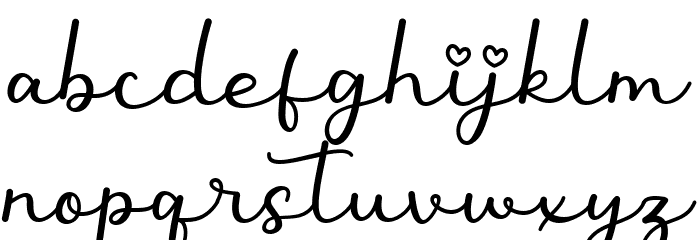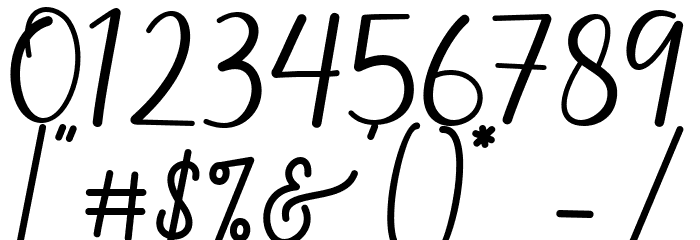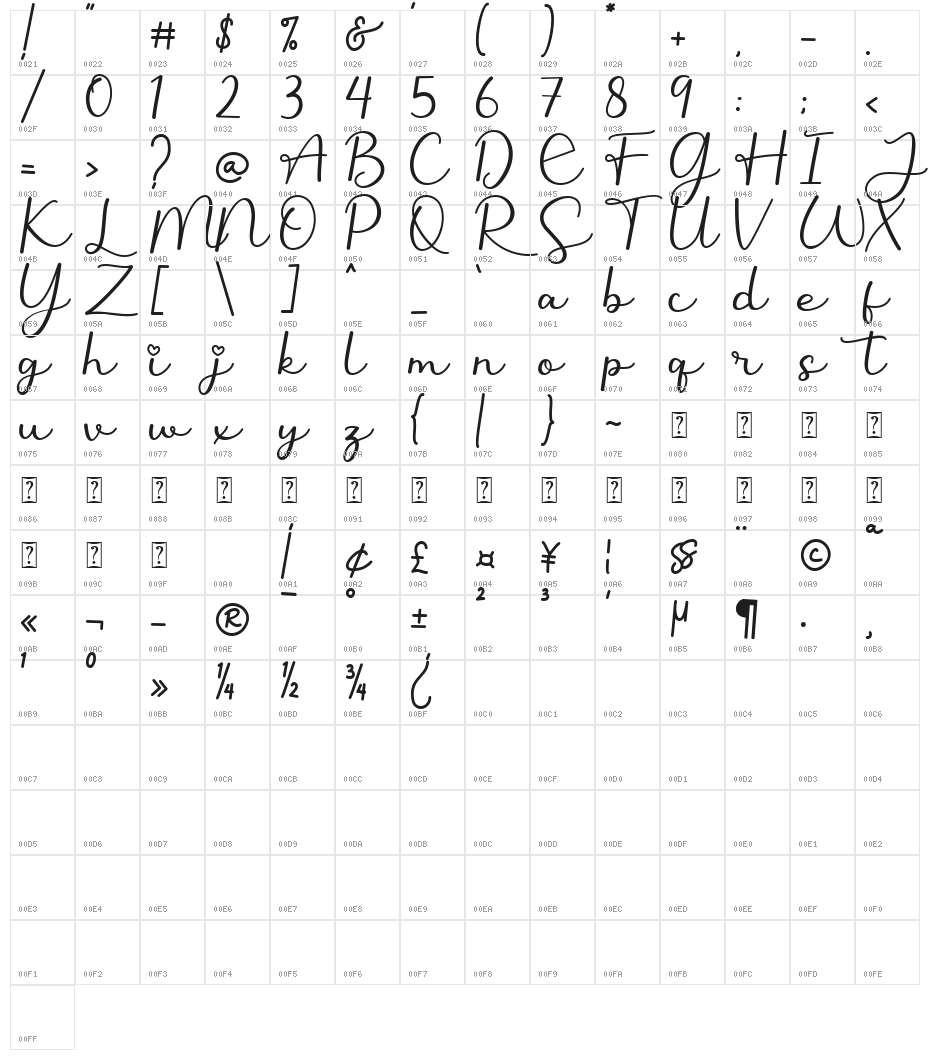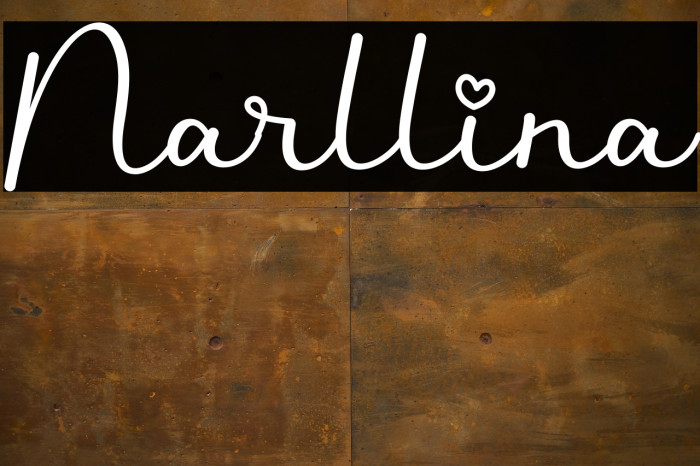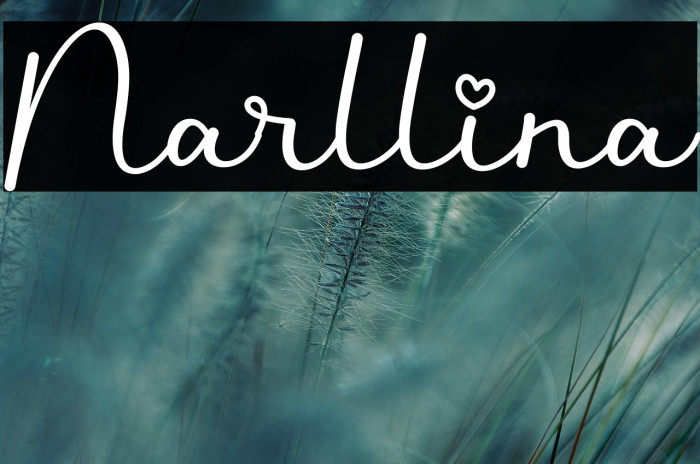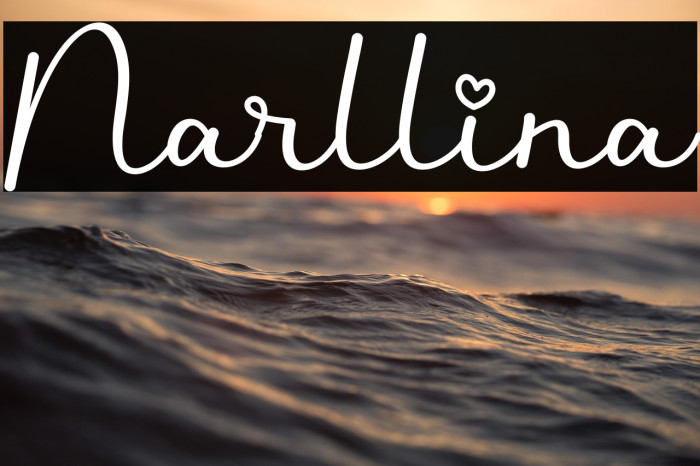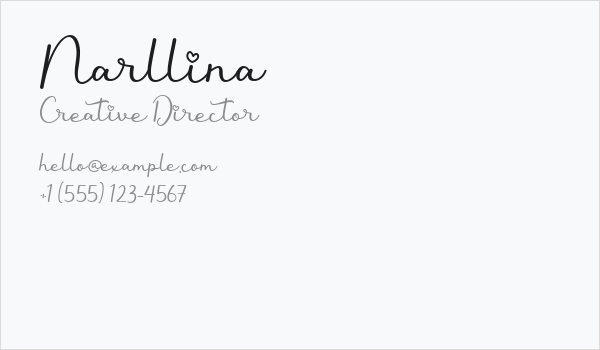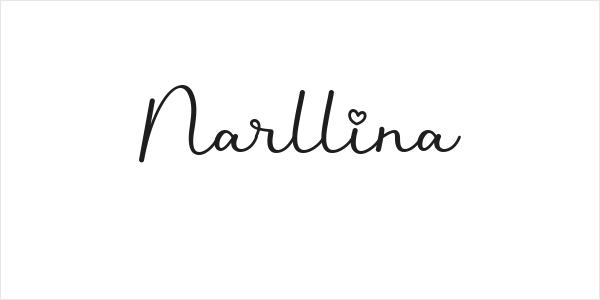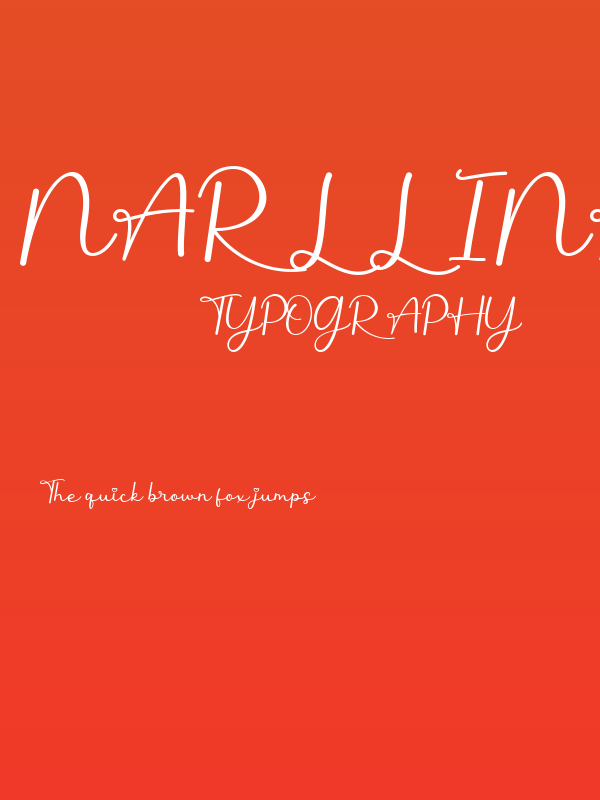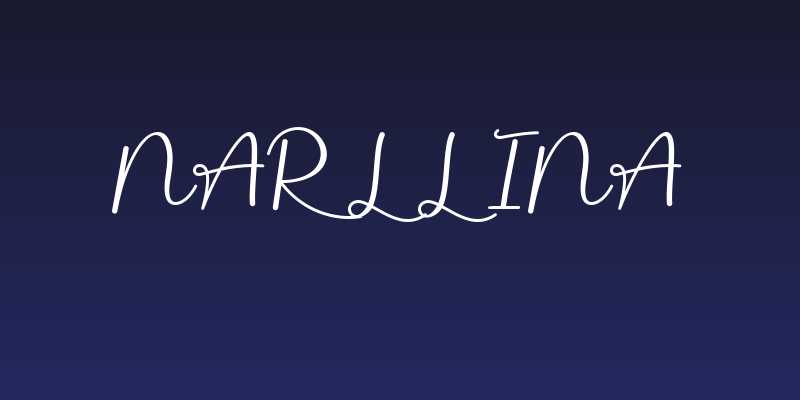
Narllina Font
This font exudes a playful and whimsical charm, characterized by its flowing, cursive script style. The uppercase letters are elegantly looped, with a consistent stroke that maintains a lively and friendly appearance. The lowercase letters continue this theme, with some featuring unique embellishments, such as small hearts above the 'i' and 'j', adding a touch of personality. The numerals are clear and legible, maintaining the same playful curves as the letters. Special characters are creatively designed, fitting seamlessly with the overall aesthetic. This font is perfect for projects that require a personal, handwritten touch, such as invitations, greeting cards, or playful branding.
A playful, cursive script font with whimsical loops and embellishments.
- Proposed Projects: Ideal for invitations, greeting cards, playful branding, and personal projects.
- Overall Style: Whimsical
- Use Case: Headlines, Logos, Invitations